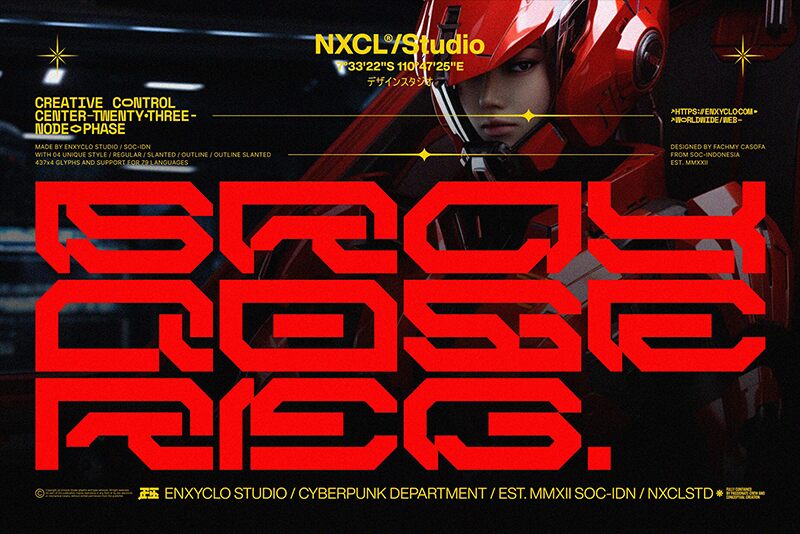
NCL BRAYQOSE Demo
NCL Brayqose font by Enxyclo Studio is a futuristic display font presenting an expanded appearance. Designed in a geometric typeface, its construction is modular while overall having a retro-inspired look with industrial elements within the letters. The final design object naturally fits into any design project tech-related or that requires advanced vibes.
Every aspect of NCL Brayqose can be seen as an invitation to use it the next time you design headlines, titles, logos, and labels. Even posters and advertisements for futuristic-themed products can benefit from this new free resource. Websites, apps, and games are additional examples where you can successfully integrate it.